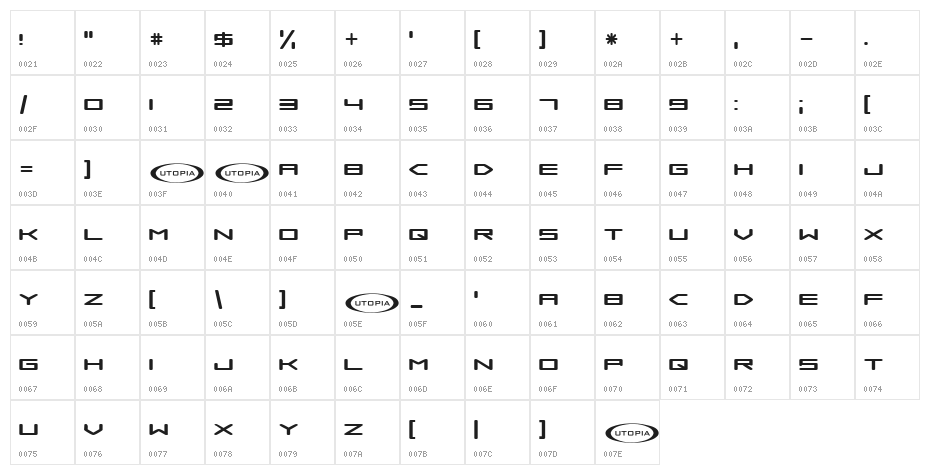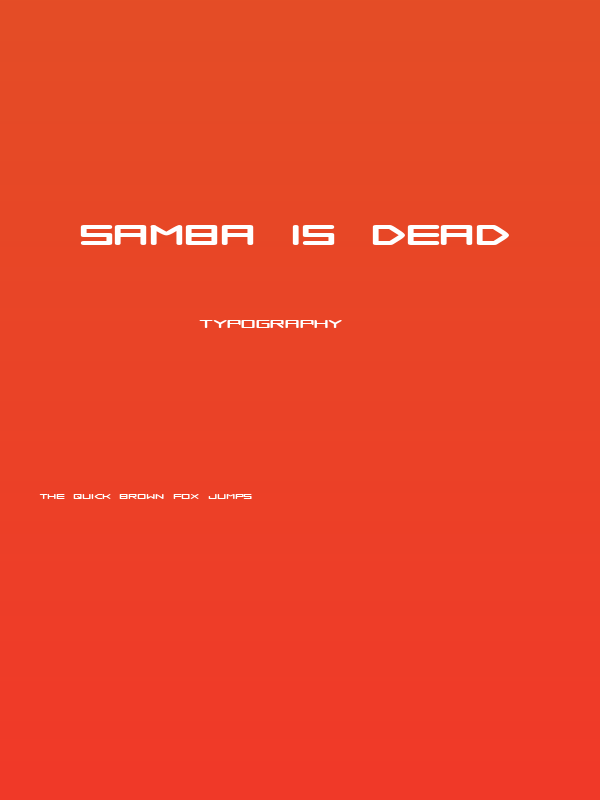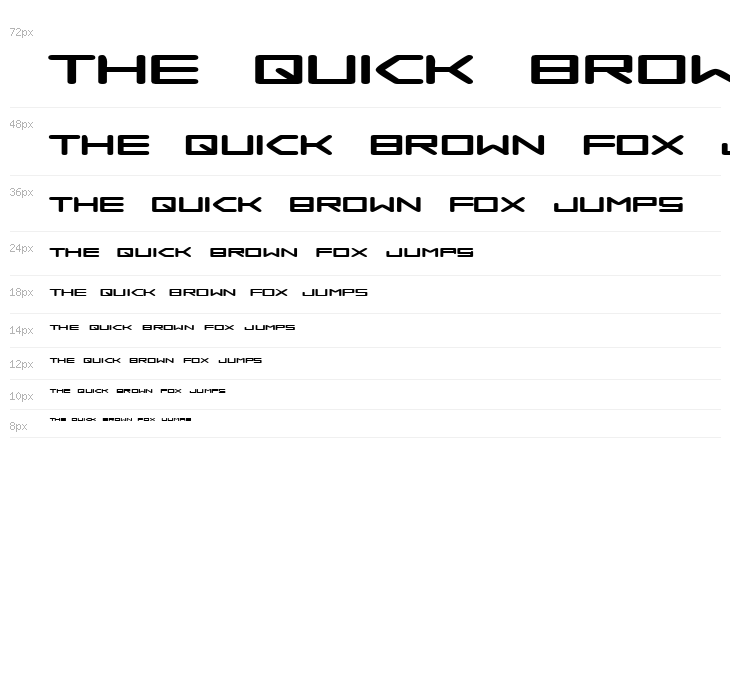
Samba is Dead Font
Samba is Dead Description
This font features a futuristic and geometric design with a distinctively modern aesthetic. The characters are constructed with clean, straight lines and rounded edges, giving them a sleek and streamlined appearance. The uppercase and lowercase letters maintain a consistent height, contributing to a uniform look. The numerals and special characters follow the same design principles, ensuring cohesion across all elements. This font's style is reminiscent of digital displays or sci-fi themes, making it ideal for projects that require a contemporary and tech-savvy feel.
Overall StyleFuturistic
Use CaseLogos, Headlines, Digital Interfaces
Proposed ProjectsIdeal for technology branding, sci-fi themed projects, digital interfaces, and modern advertising campaigns.